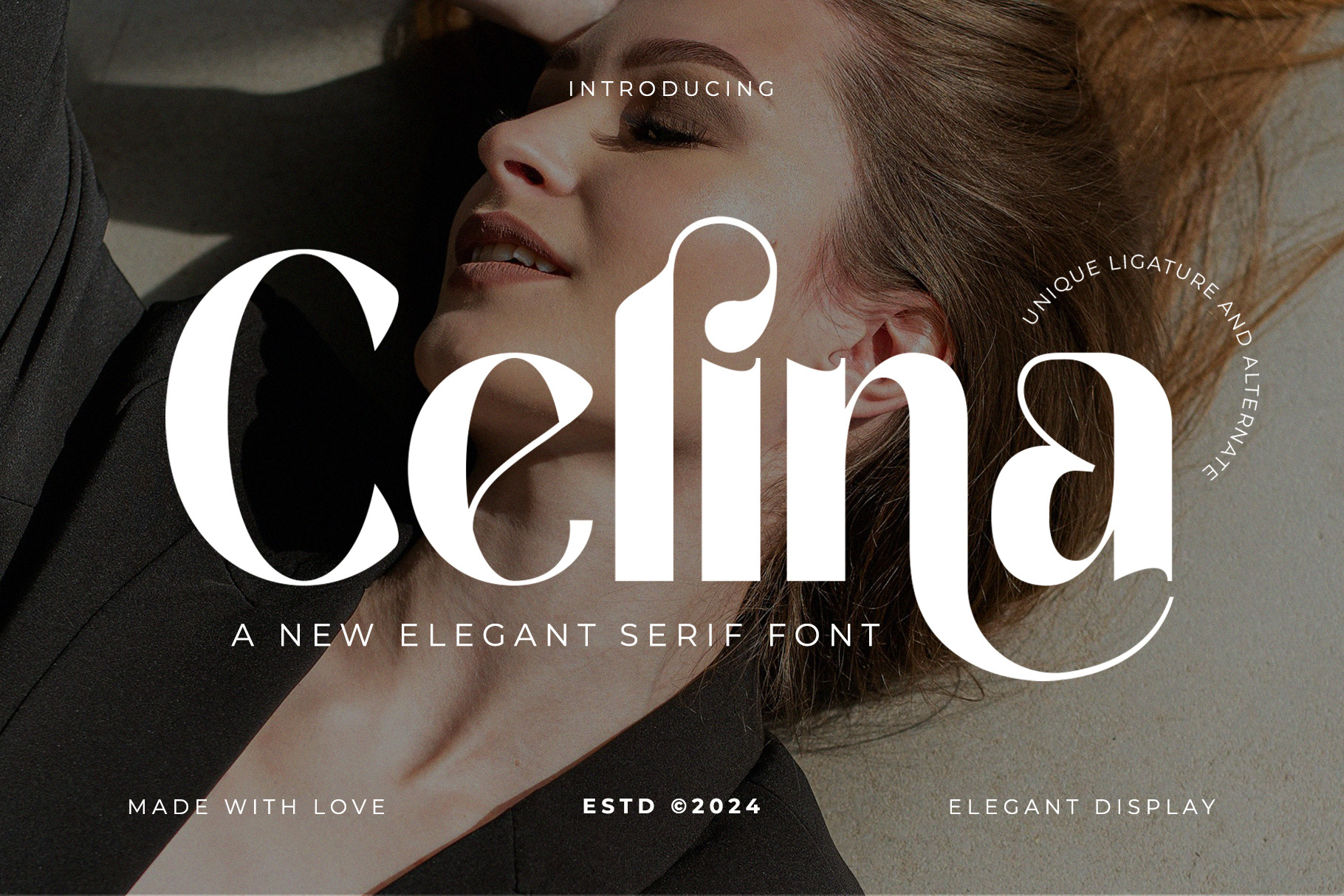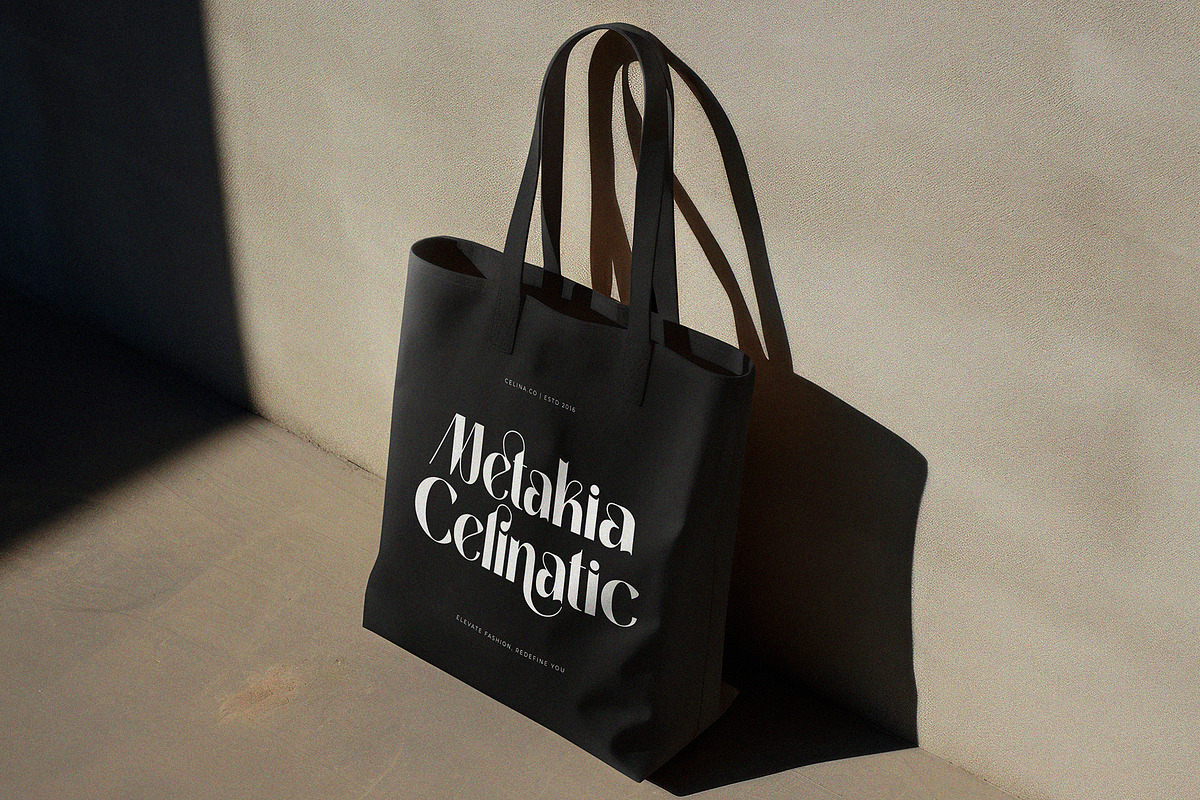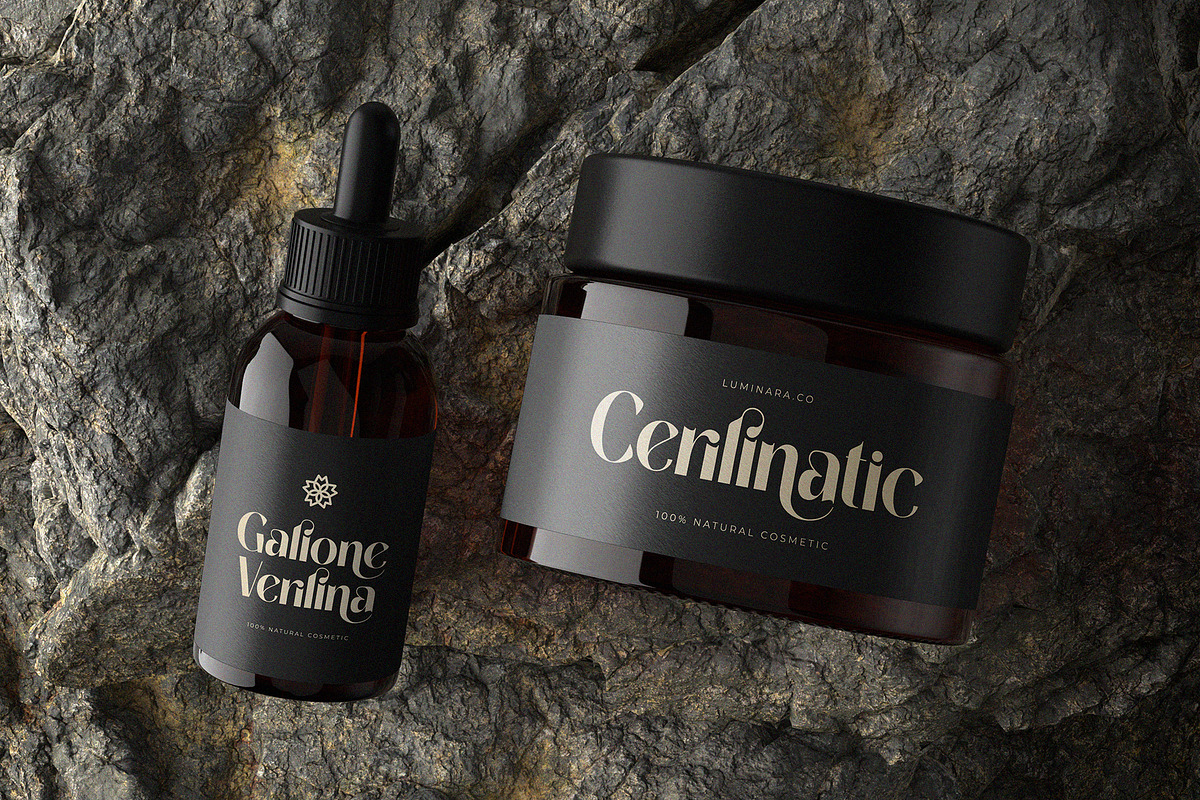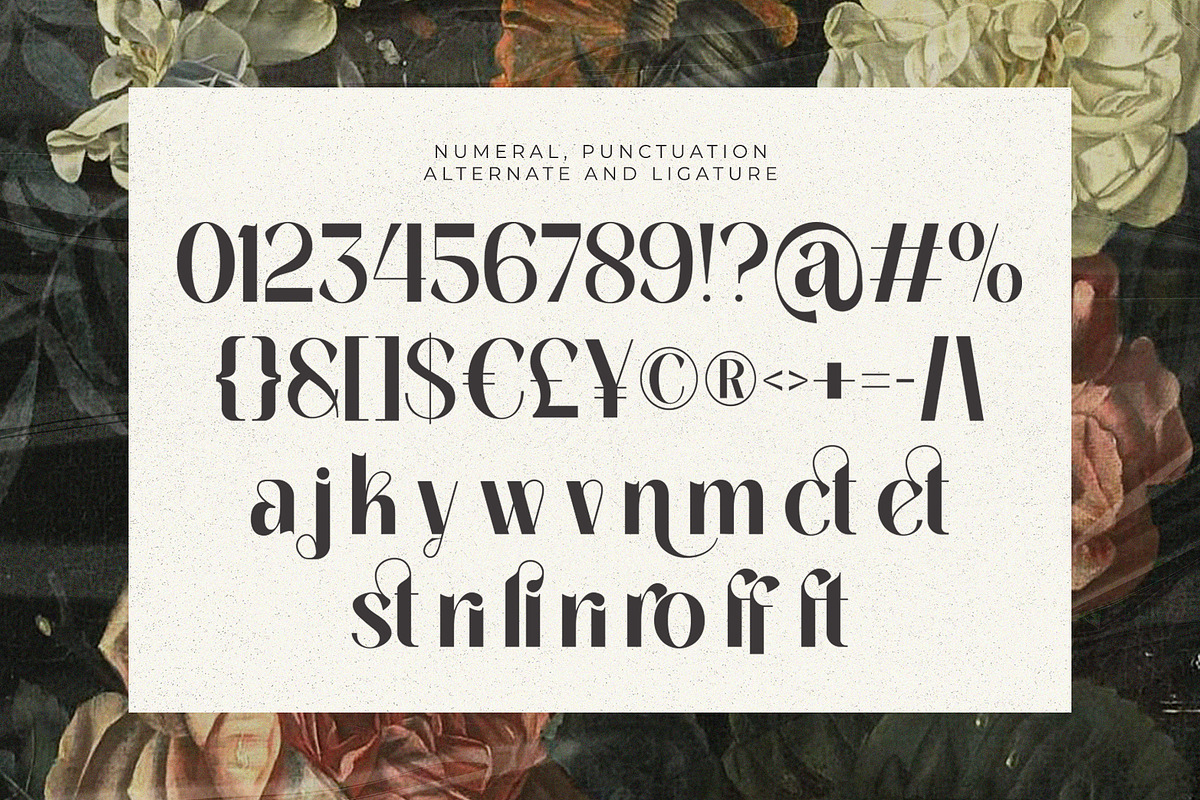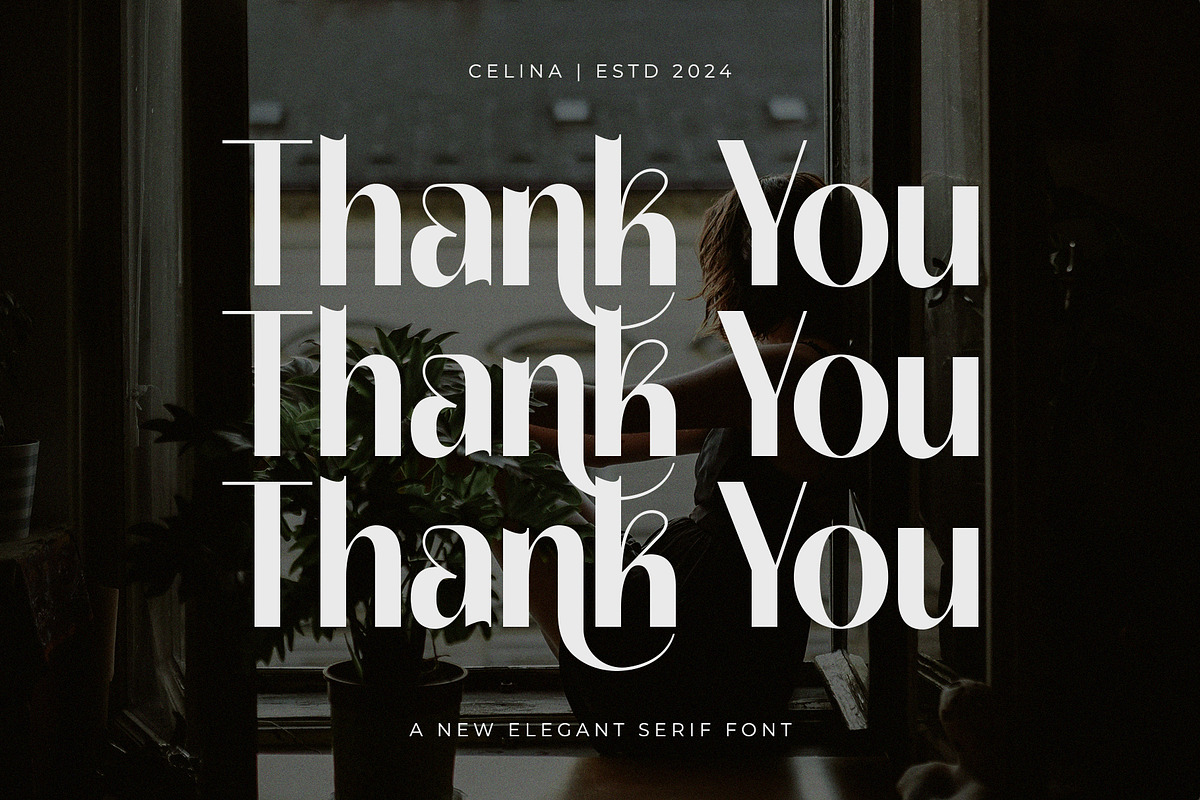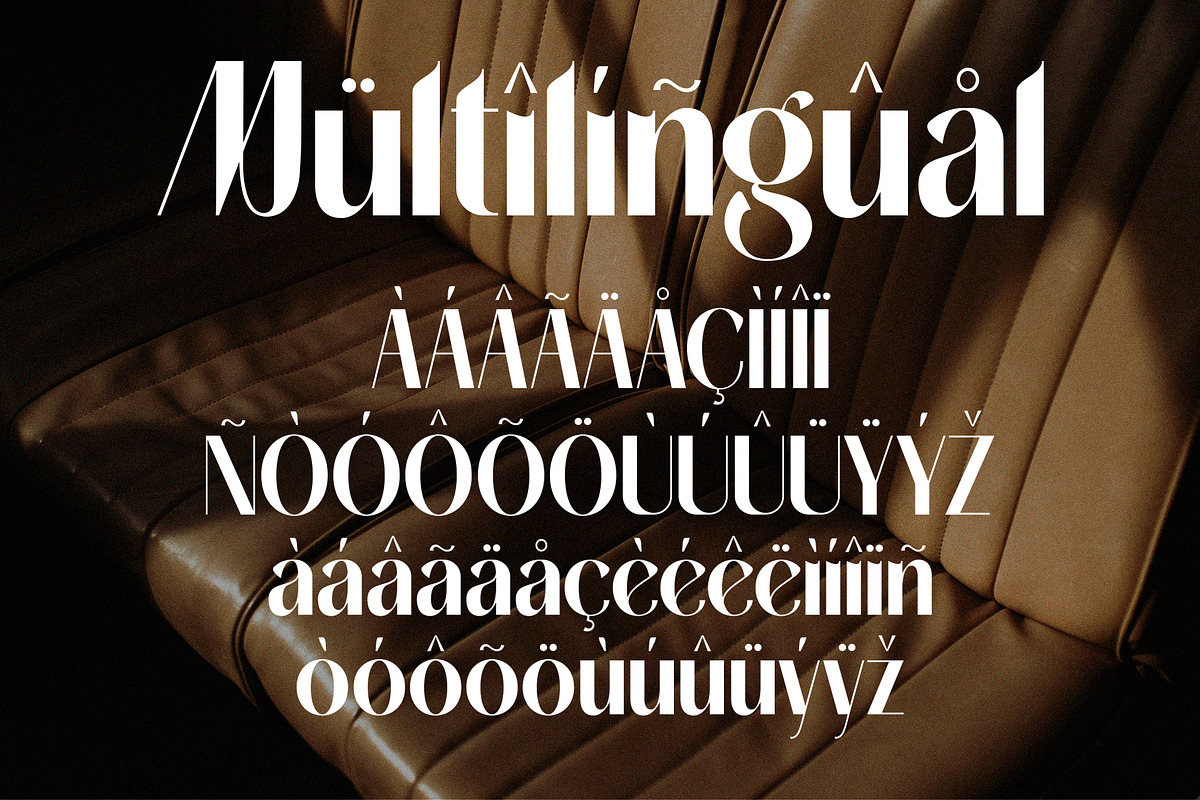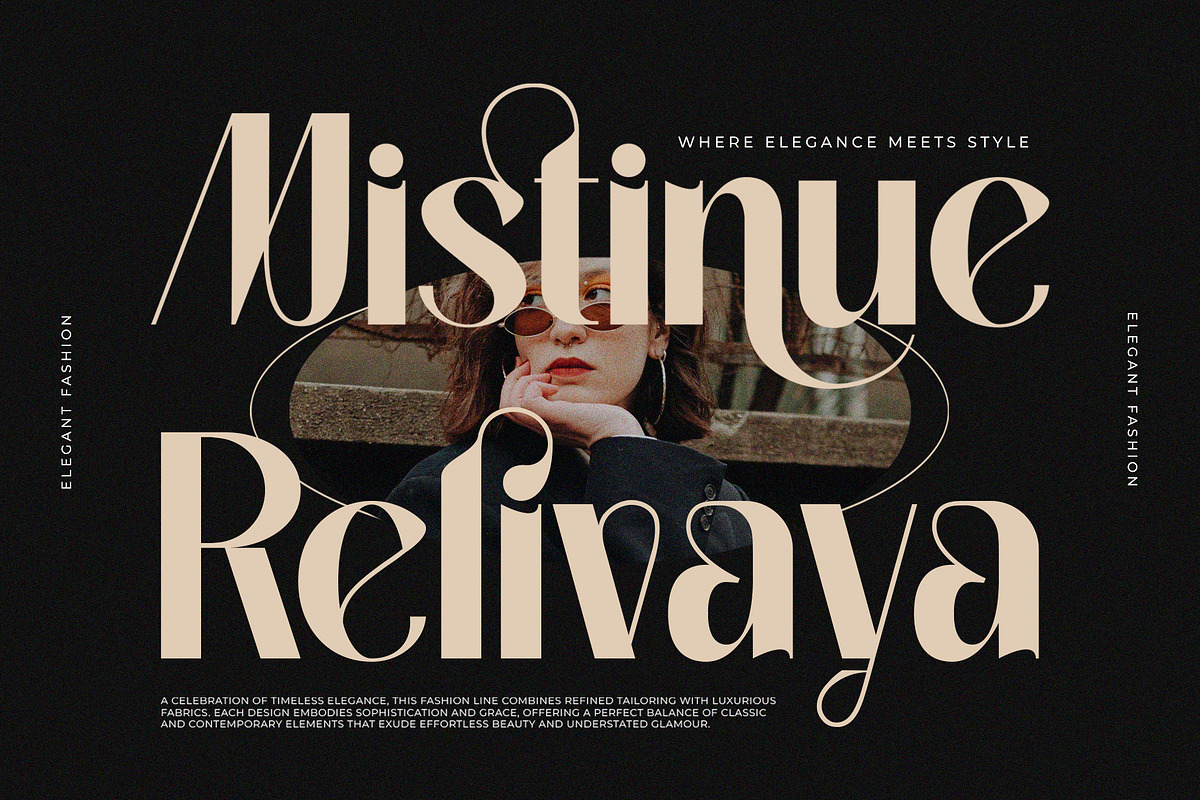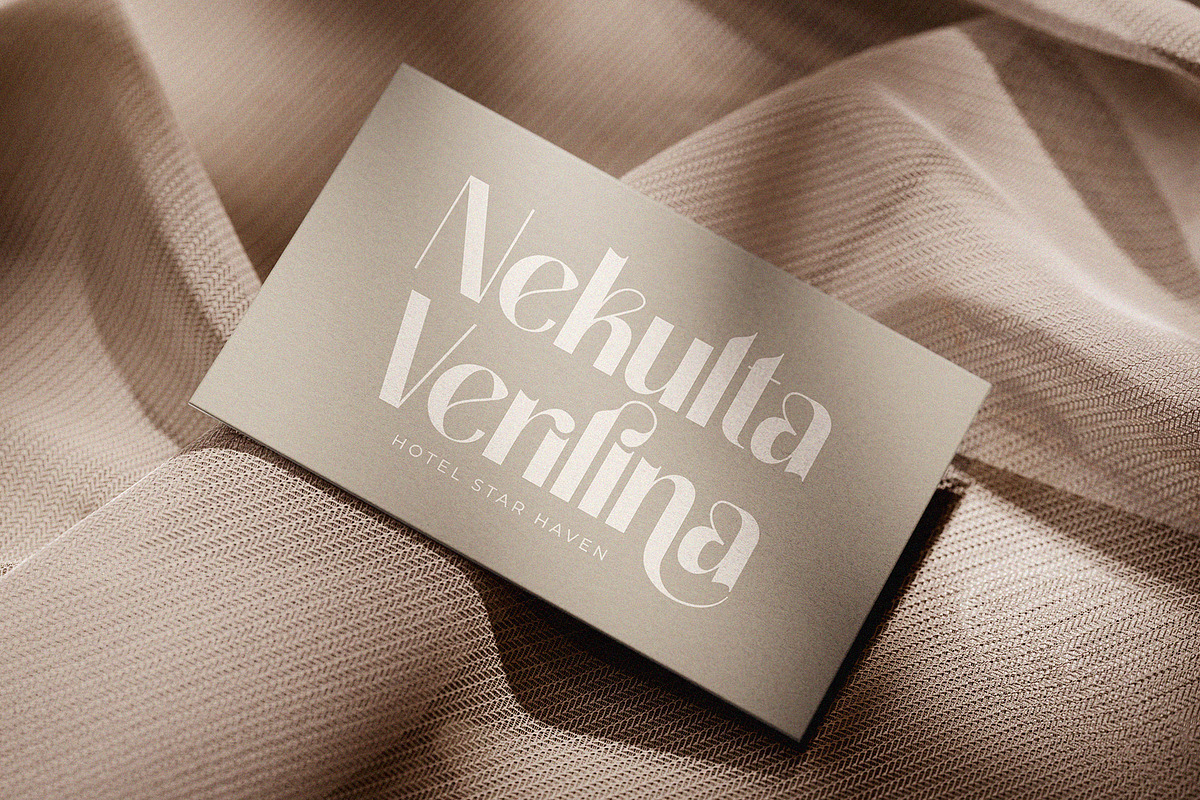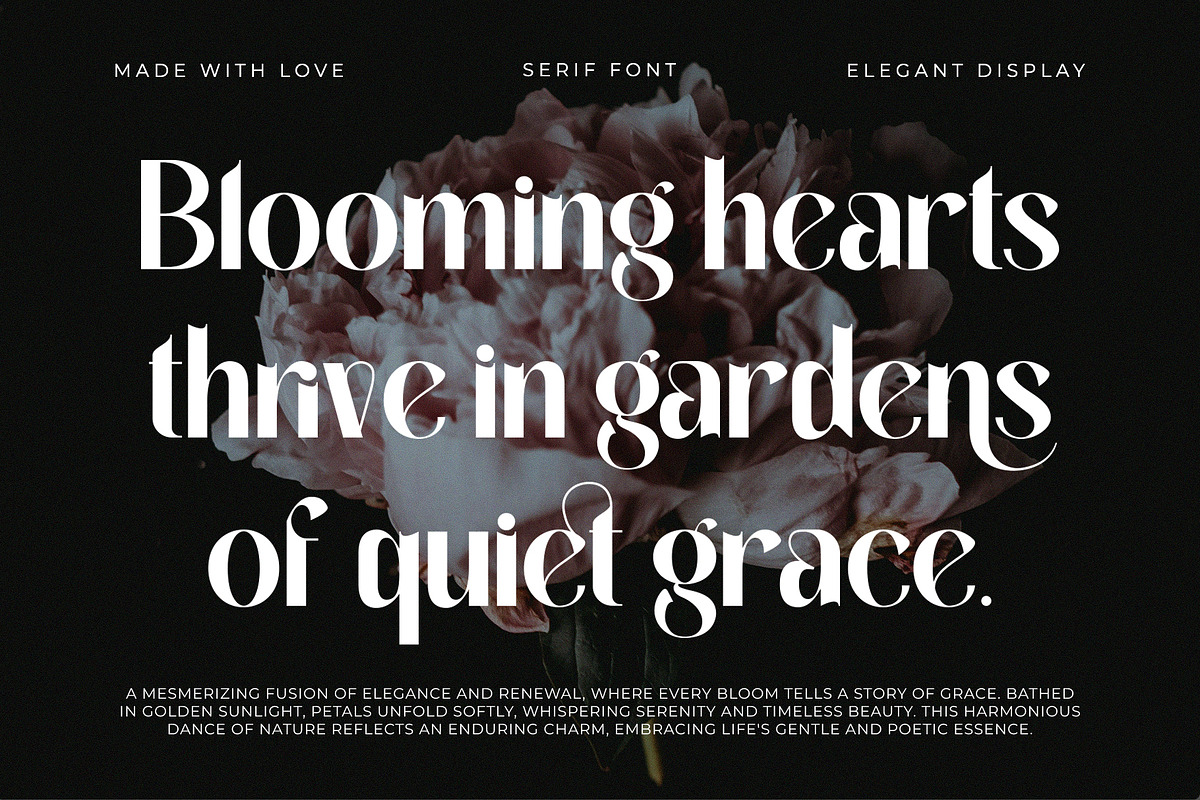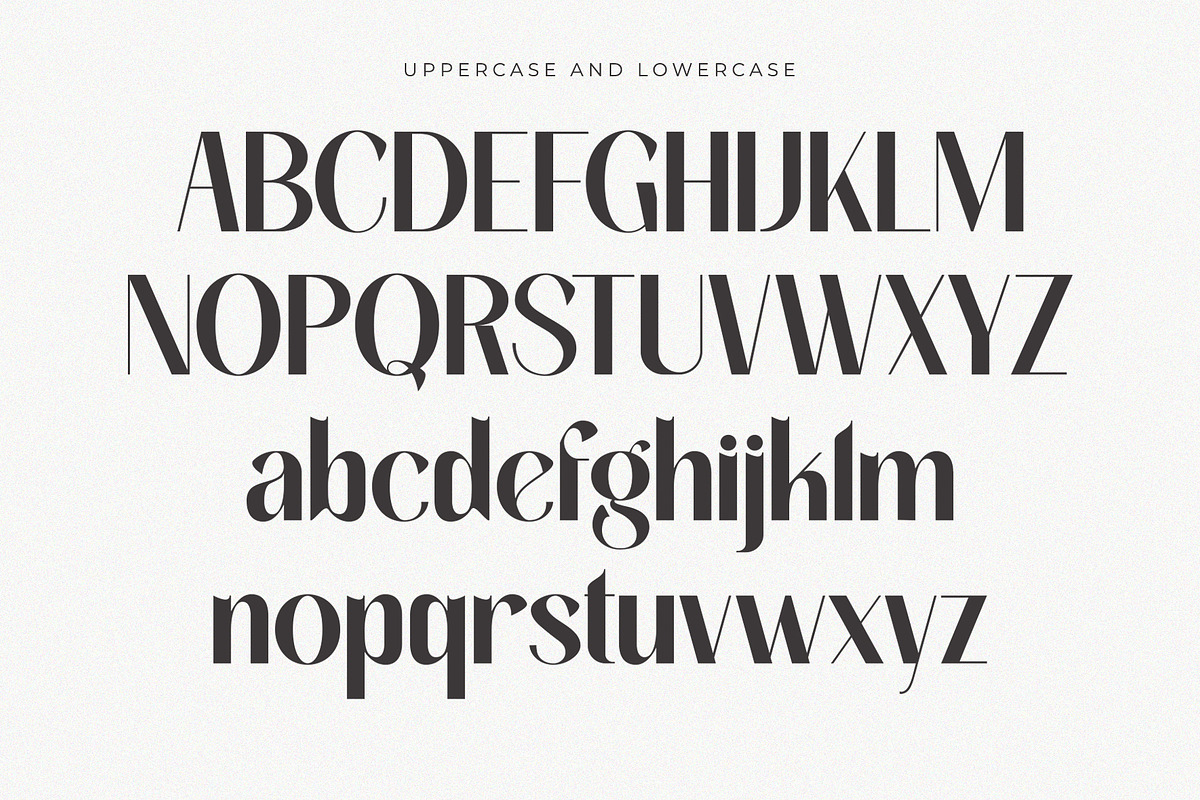
Celina - Elegant Serif Font
Introducing a sophisticated serif font, blending classic elegance with modern versatility. Perfect for branding, logos, invitations, and more. Its refined style elevates any design project.
- Uppercase & Lowercase Characters: Fully designed for a complete typographic experience
- Numerals & Punctuation: All the numbers and punctuation marks you need for any design task
- Multilingual Support: Includes characters for multiple languages, ensuring global usability
- High-Quality Design: Each font is crafted with attention to detail, ensuring a polished and professional look